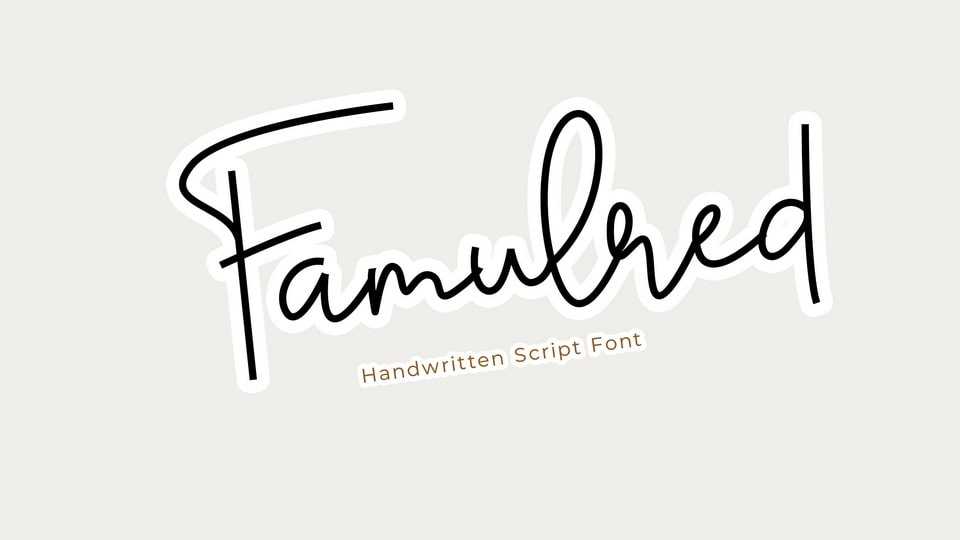
Download Famulred font, a casual monoline handwritten typeface that effortlessly combines simplicity with a touch of personal style. Famulred font is gracefully crafted, maintaining a consistent line weight to deliver a clean and relaxed handwritten feel.